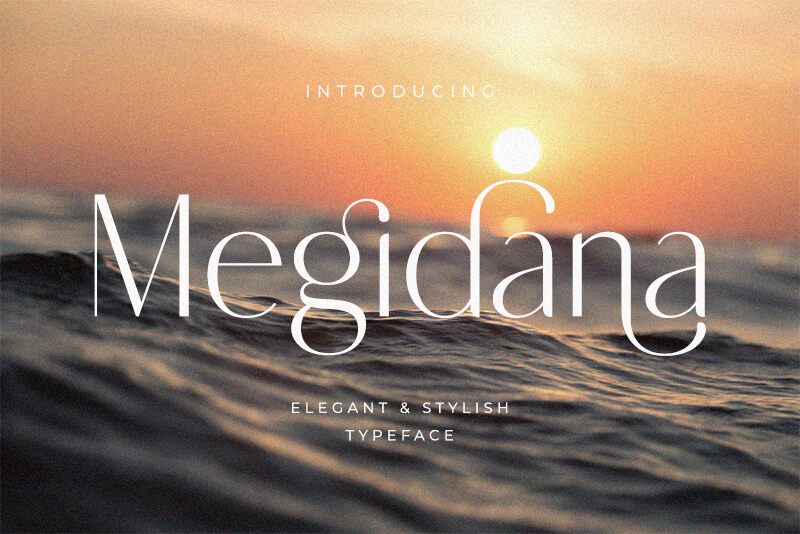
Megidana, a creation by BrandSemut, is an elegant and stylish sans serif font that exudes sophistication. With its semi-light weight, this font adds a touch of delicacy to any project.
Perfect for fashion editorials, luxury brand logos, and high-end packaging designs, Megidana effortlessly captures attention with its refined aesthetic. Its clean lines and modern appeal make it equally suitable for website headers and professional presentations.
Let Megidana elevate your visual communication to new heights with its timeless elegance and versatility.